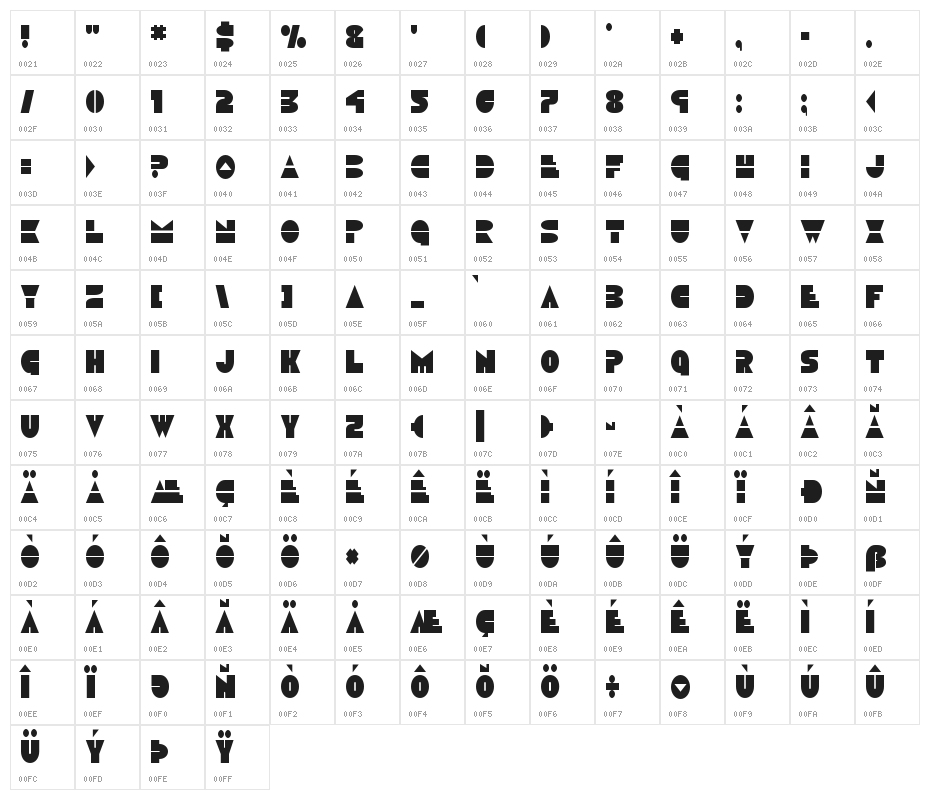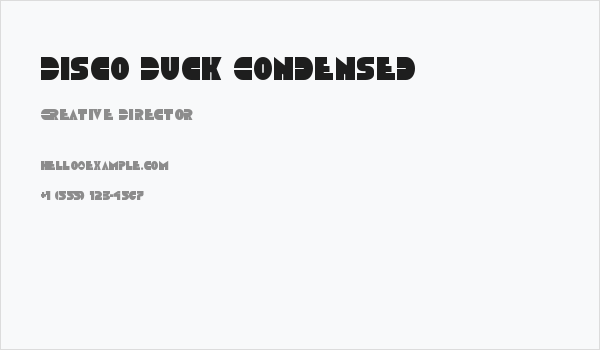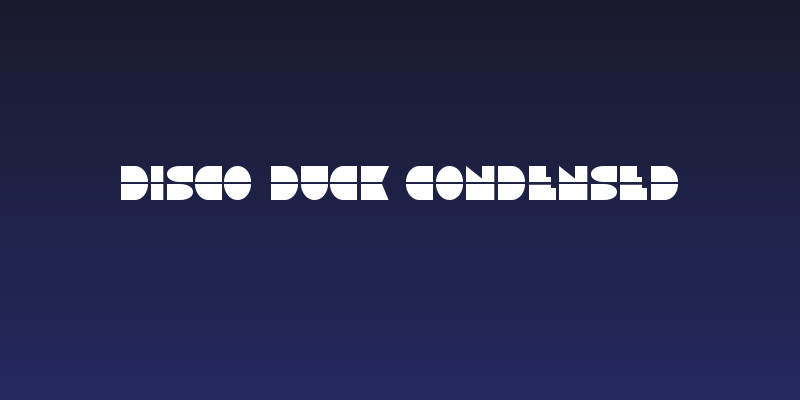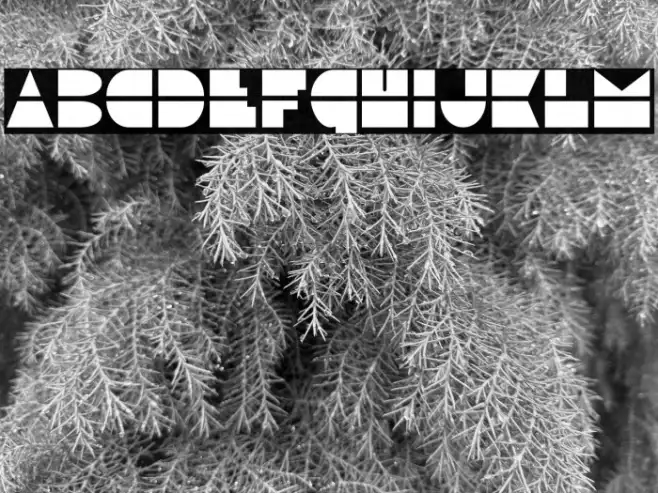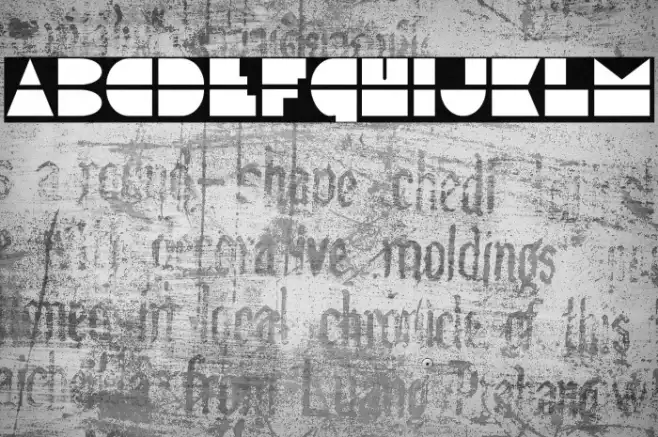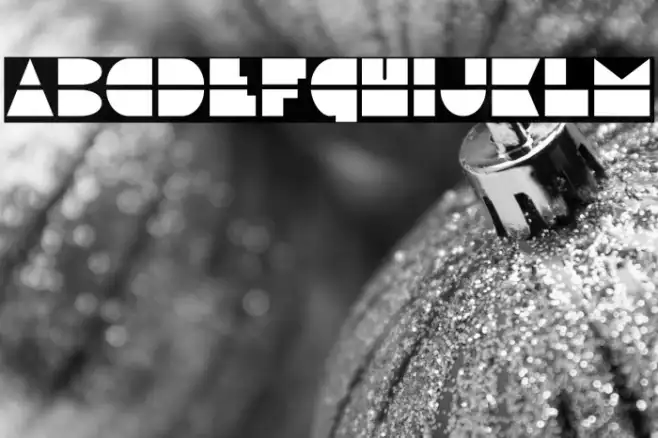
Disco Duck Condensed Font
Disco Duck Condensed Description
This font features a bold, geometric design with a distinctively modern and playful aesthetic. The characters are constructed with a combination of sharp angles and rounded edges, creating a unique visual rhythm. The uppercase and lowercase letters maintain a consistent style, with a strong emphasis on symmetry and balance. Numbers and special characters are equally bold and stylized, ensuring a cohesive look across all text elements. The condensed width of the font allows for efficient use of space, making it ideal for eye-catching headlines and titles.
| Proposed Projects | Ideal for retro-themed designs, music album covers, posters, and branding projects that require a bold statement. |